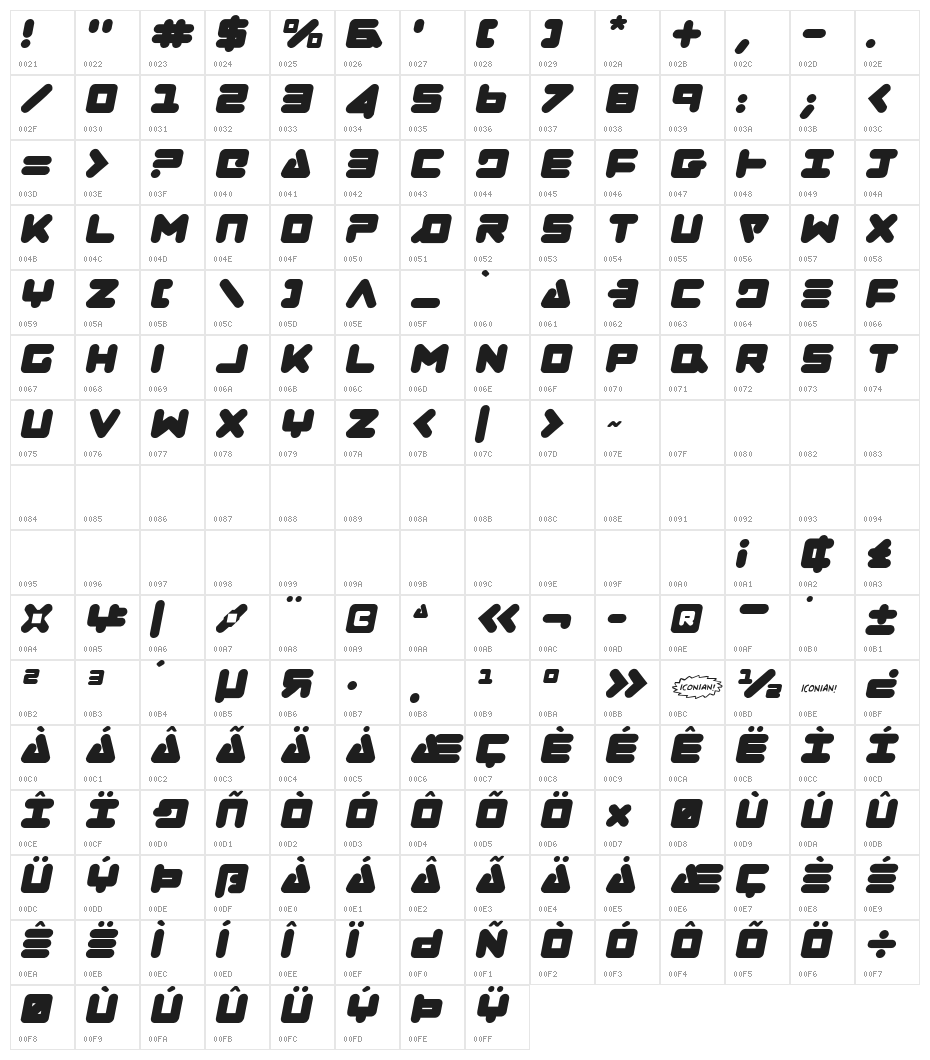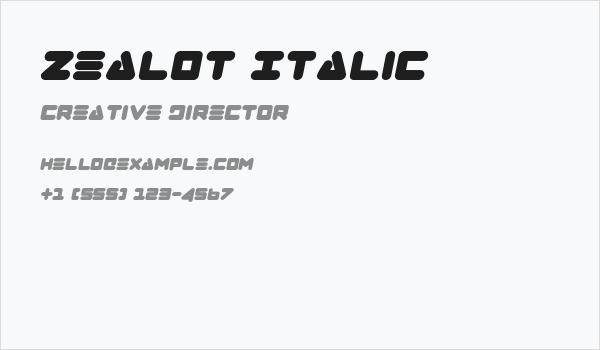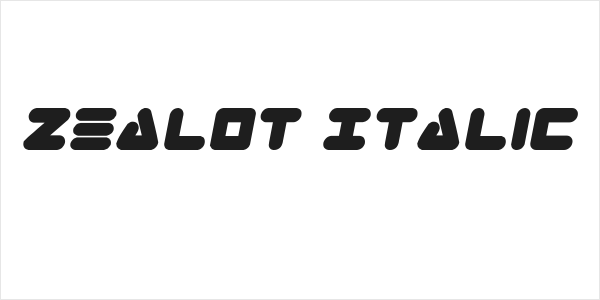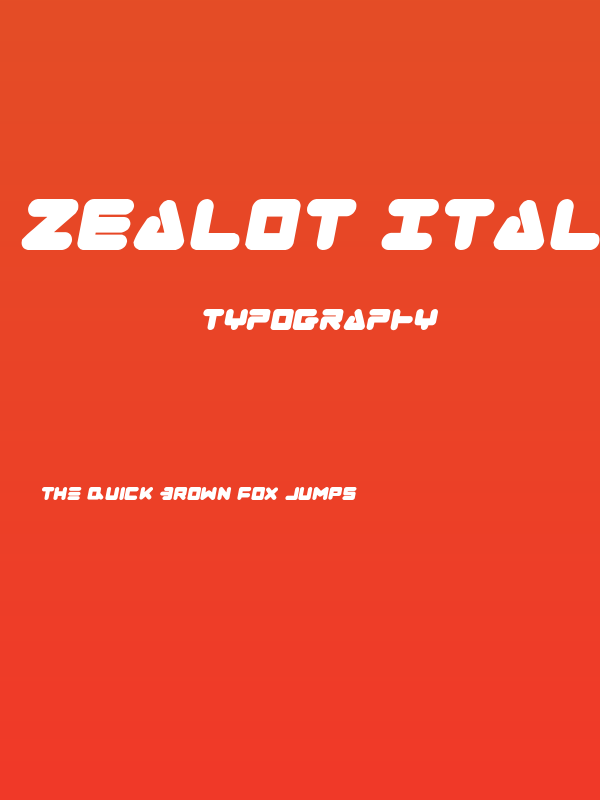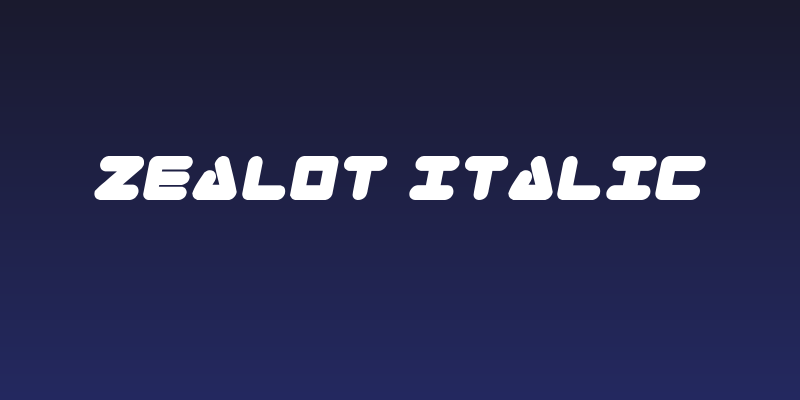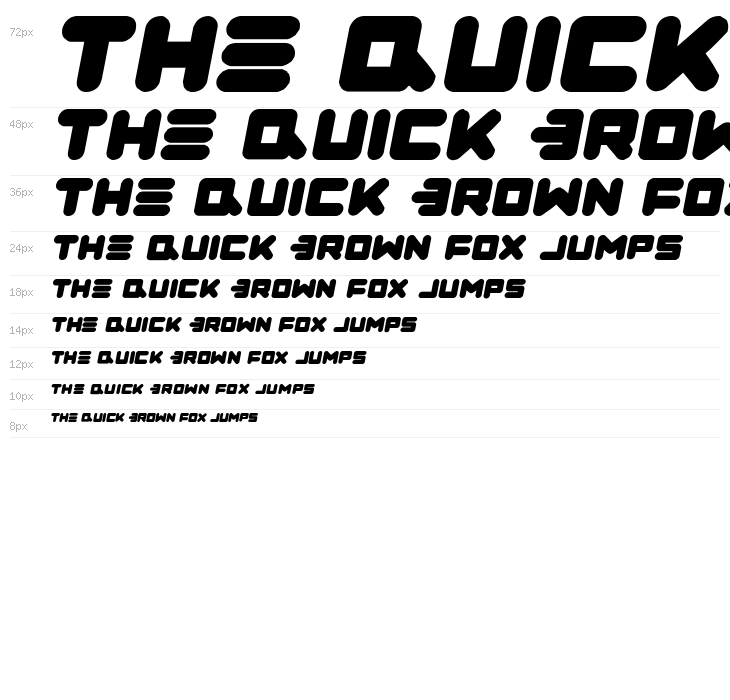
Zealot Italic Font
Zealot Italic Description
This font features bold, rounded characters with a futuristic and dynamic appearance. The letters are slightly slanted, giving an italicized effect that enhances its modern and energetic style. The characters are uniformly thick, with a consistent stroke width that contributes to a cohesive and bold look. The rounded edges soften the overall appearance, making it approachable while maintaining a strong presence. This font is well-suited for projects that require a contemporary and eye-catching design, such as technology branding, sports team logos, or modern advertising campaigns.
Use CaseLogos, Headlines
Proposed ProjectsIdeal for technology branding, sports logos, modern advertising, and dynamic presentations.